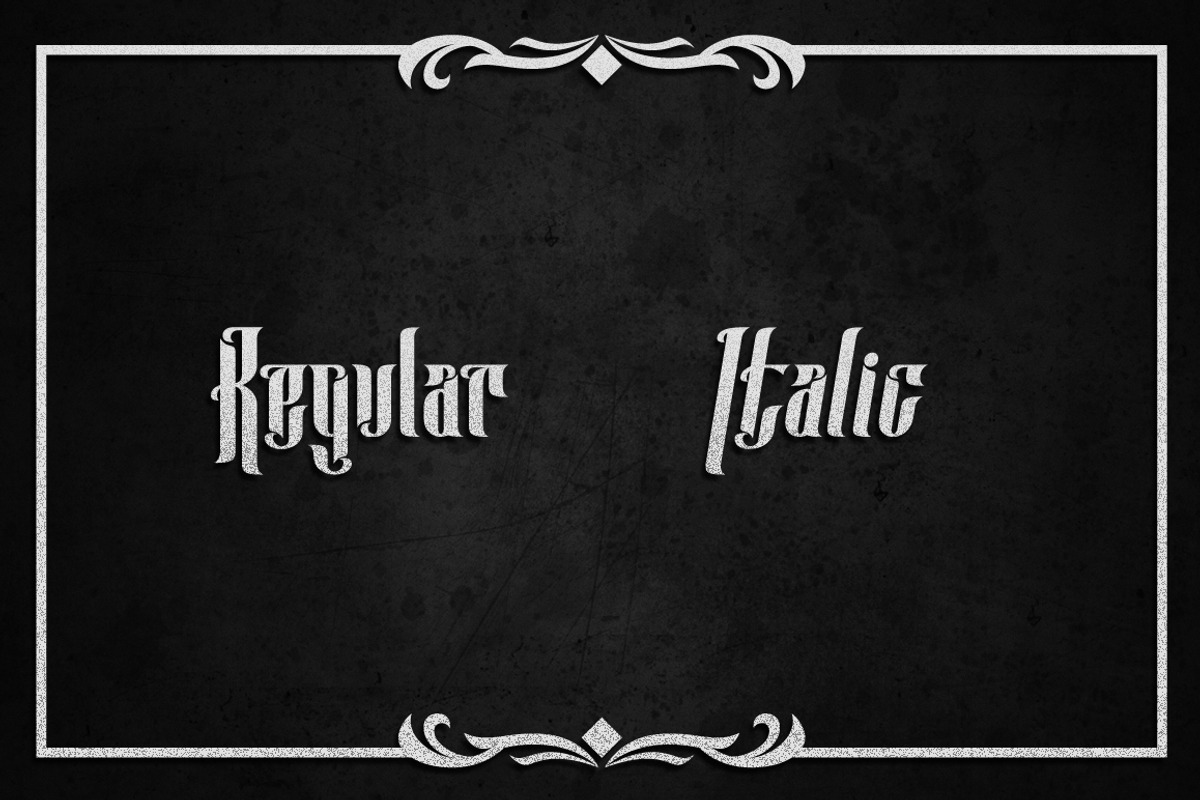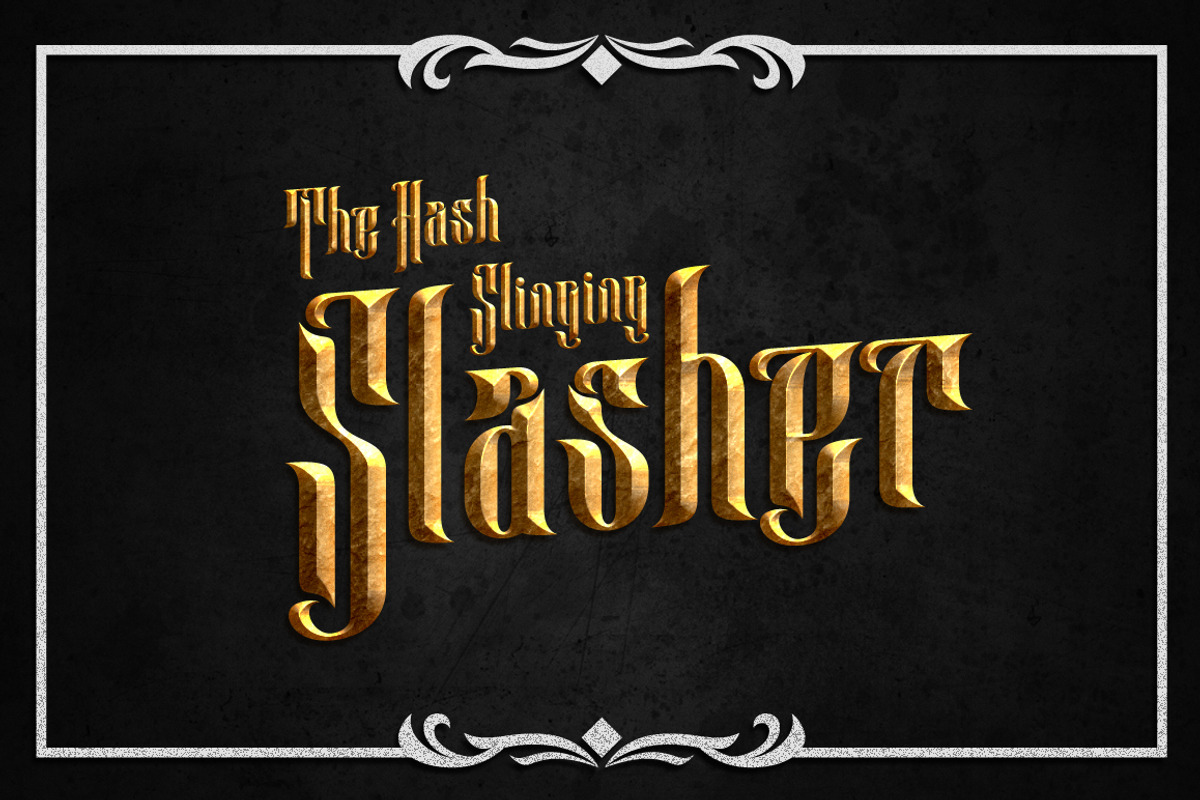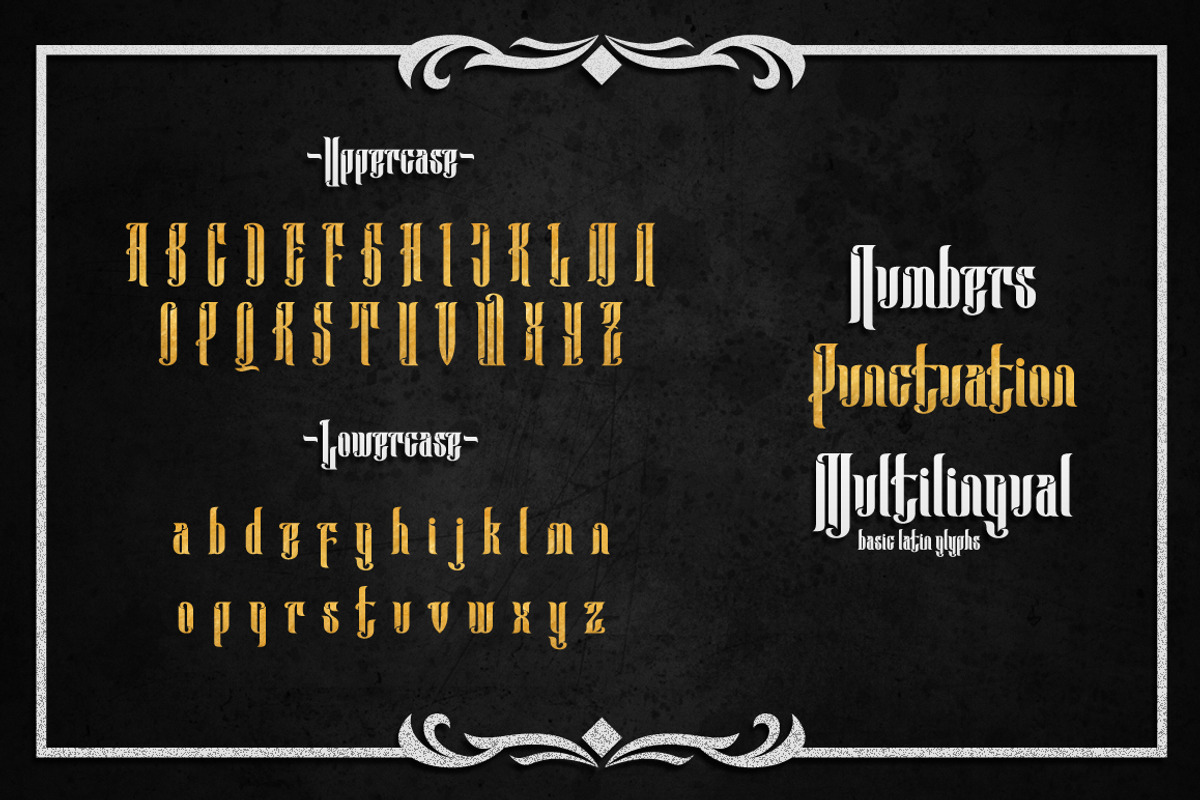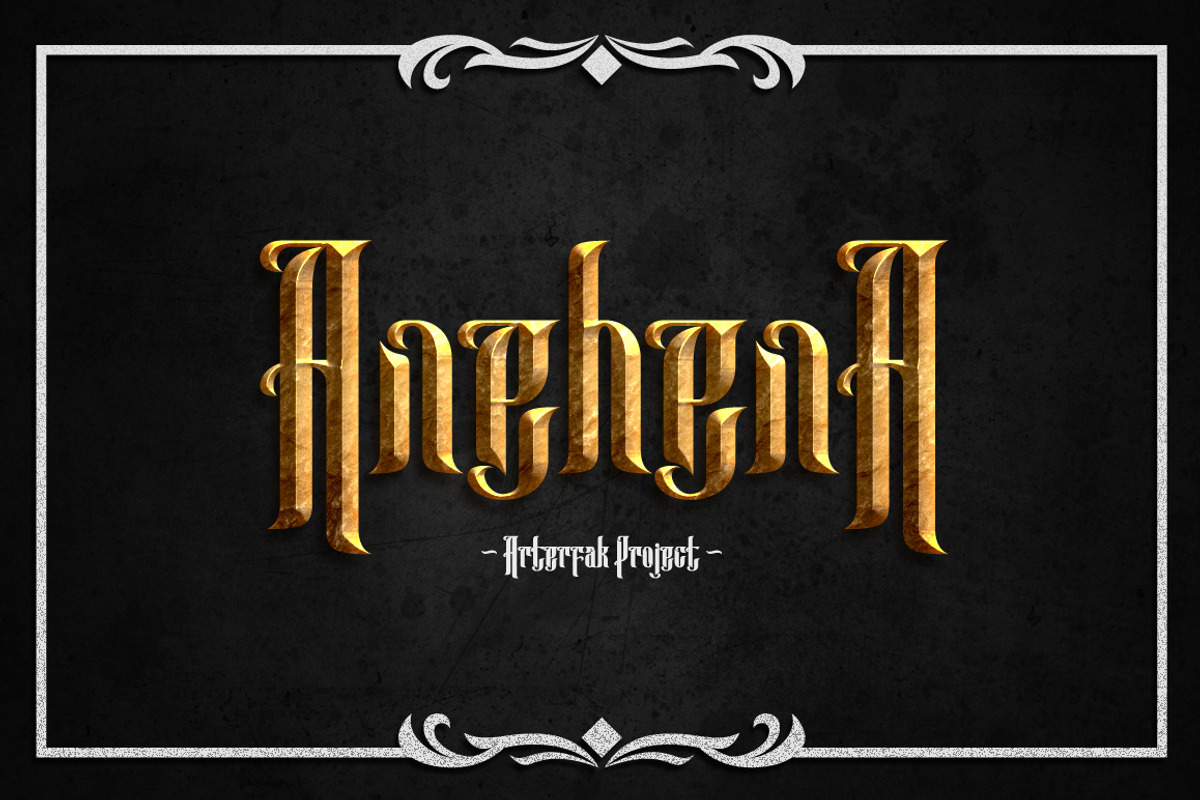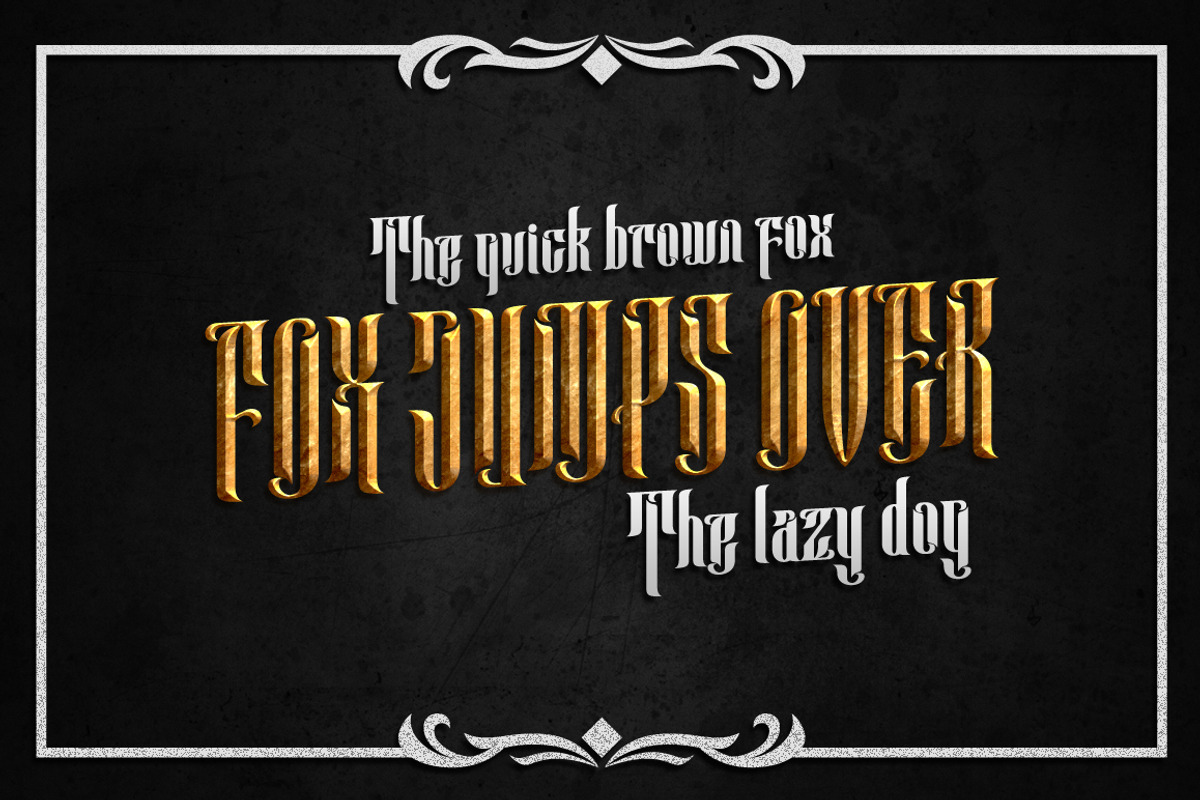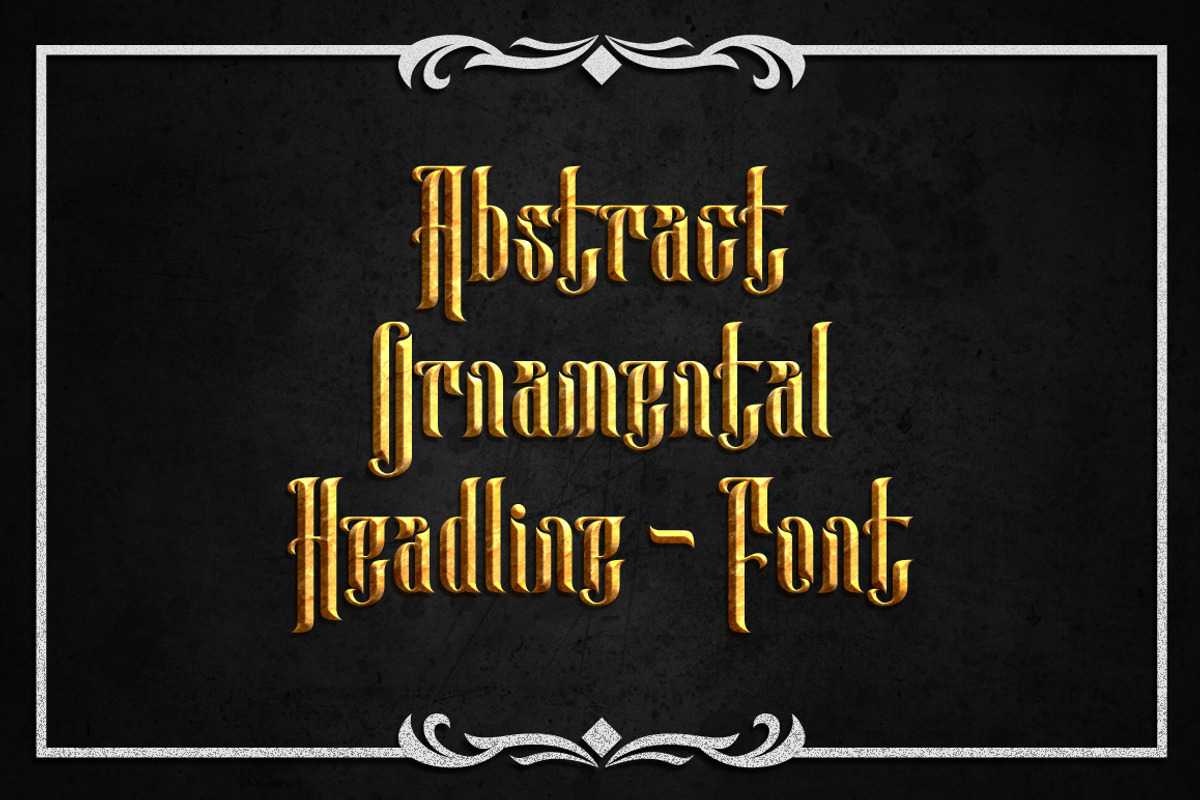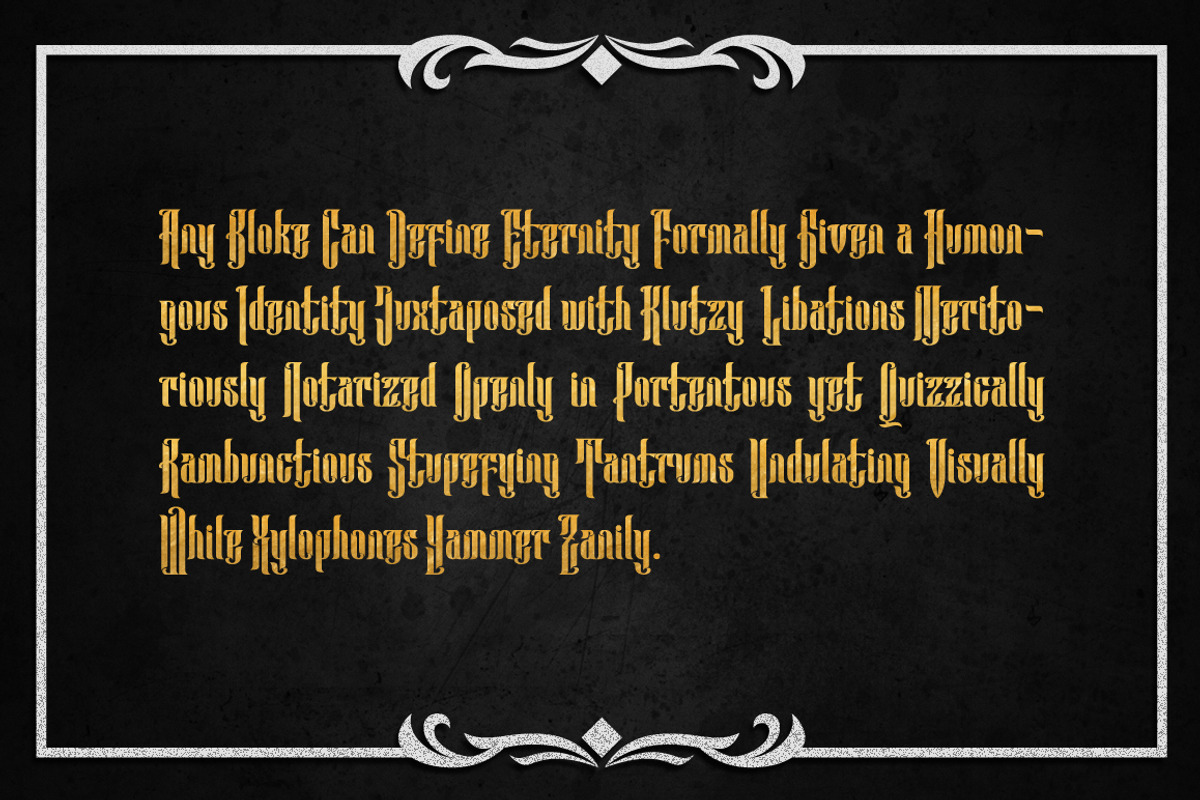
Anehena Typeface
Anehena Typeface by Arterfak Project is a font selected for branding, posters, packaging, typography.
- Anehena Regular
- Anehena Italic
Why Anehena Typeface is worth a look
Anehena Typeface by Arterfak Project fits naturally into Branding, posters, packaging, typography.